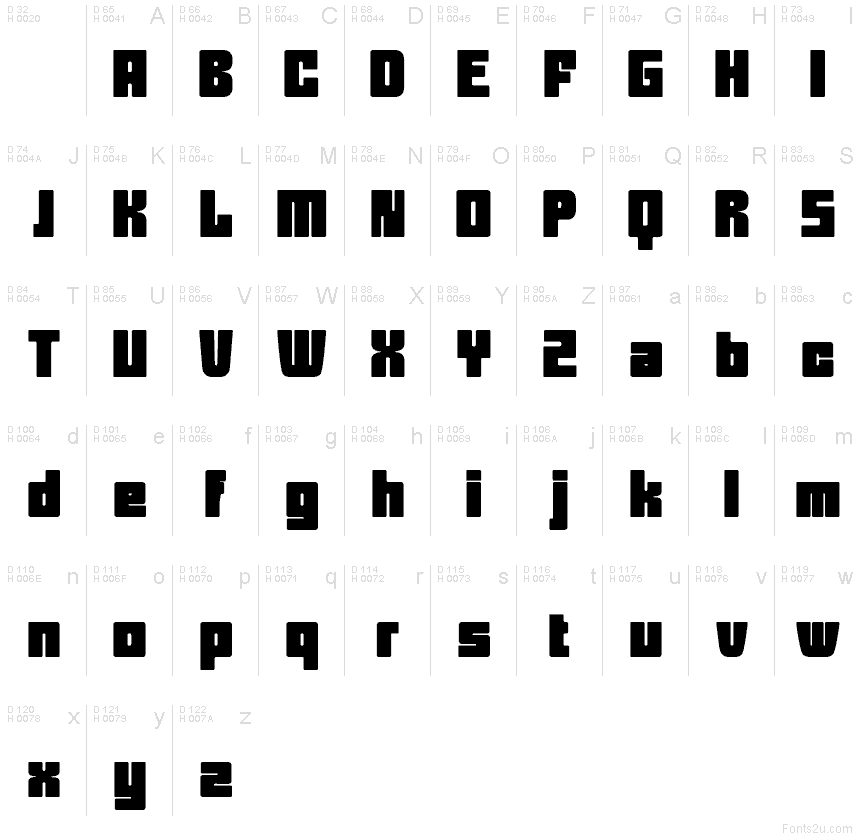
CSSpaceDrawn-Regular Demo
CS Space Drawn font by Craft Supply Co. is a free bold techno display font. Part of the CS Space family, it stands out with chunky, monoline blocks, rounded corners, and precise cutaway notches that feel engineered yet friendly. The rhythm is steady and compact, with squared counters and clipped terminals that read like modular panels—clean, futuristic, and unmistakably graphic.
This free font shines on sci‑fi posters, esports logos, tech event branding, space-themed packaging, album covers, and splash screens. Using CS Space Drawn, keep headlines big and add a touch of tracking at smaller sizes for clarity. Pair it with a light, neutral grotesk to let the sturdy forms do the heavy lifting.